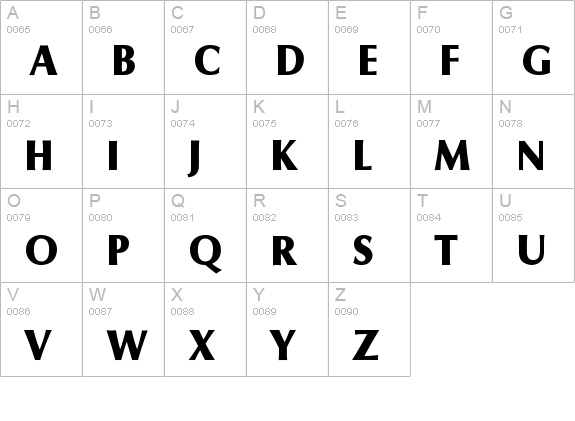
Ferrule Display SSi Font Details
Ferrule Display SSi font is a striking and modern typeface that will make your designs stand out. With its sleek lines and bold presence, this font is perfect for headlines, posters, logos, and more. The unique design of Ferrule Display SSi font exudes confidence and sophistication, making it a versatile choice for a wide range of projects. Best of all, Ferrule Display SSi font is available for free download at FontsMarket.com. Whether you're a designer looking to add a fresh touch to your work or a business owner in need of a dynamic branding solution, this font is sure to impress. Don't miss out on the opportunity to enhance your designs with the stylish and impactful Ferrule Display SSi font - download it for free today!